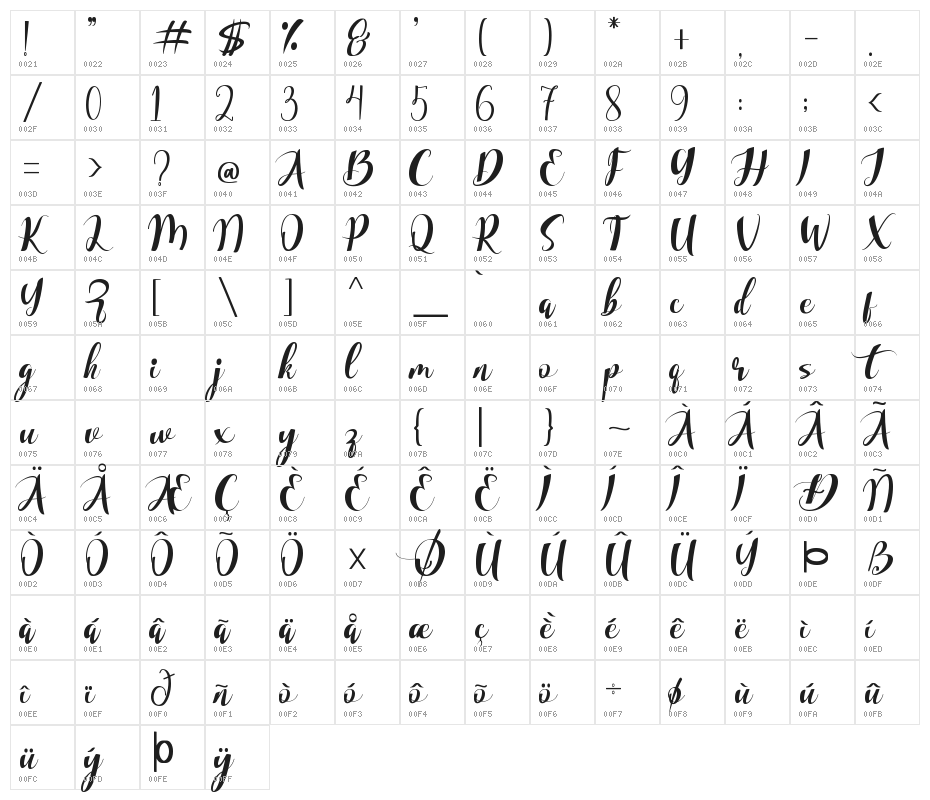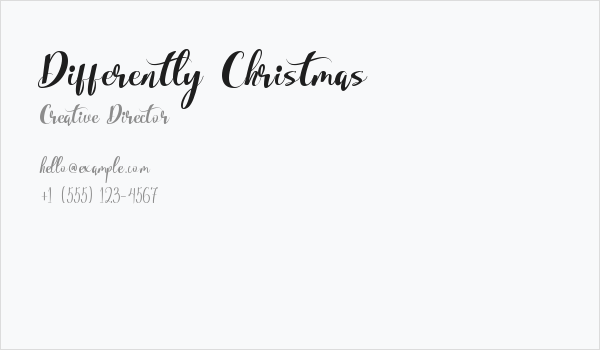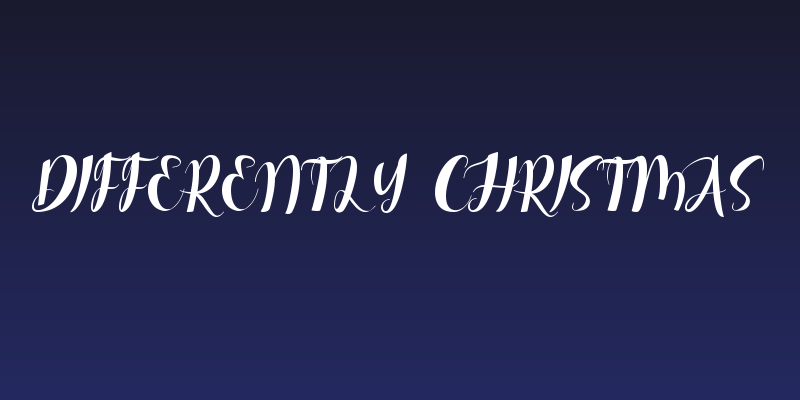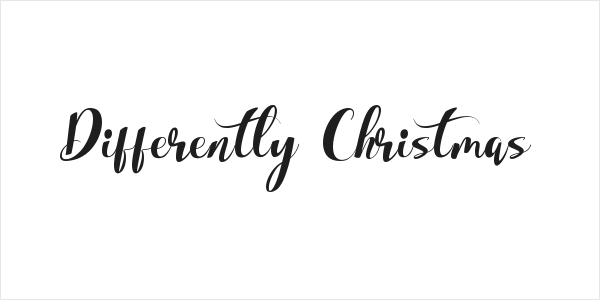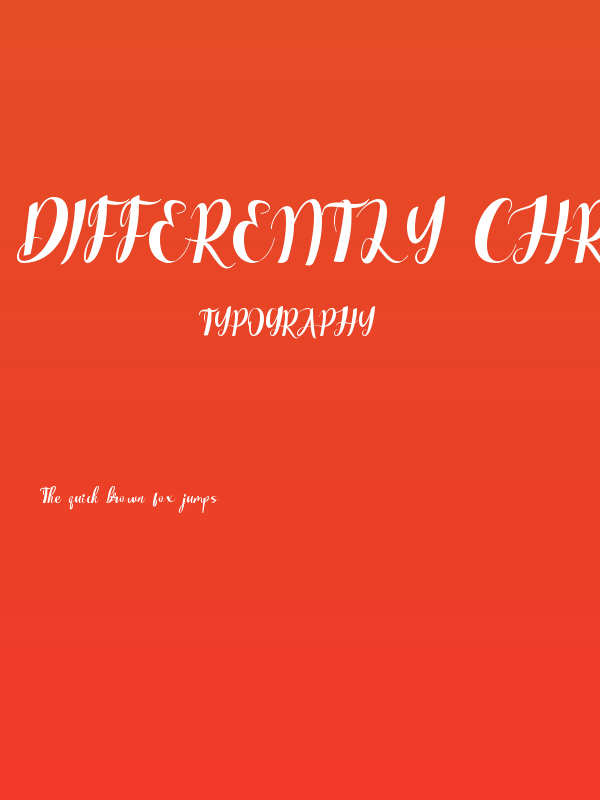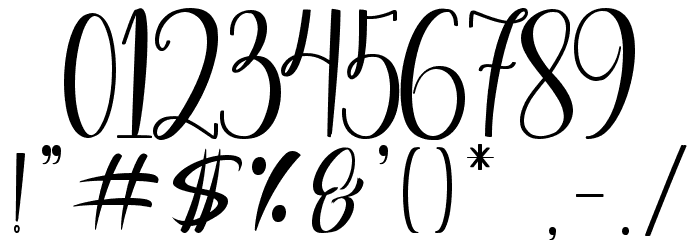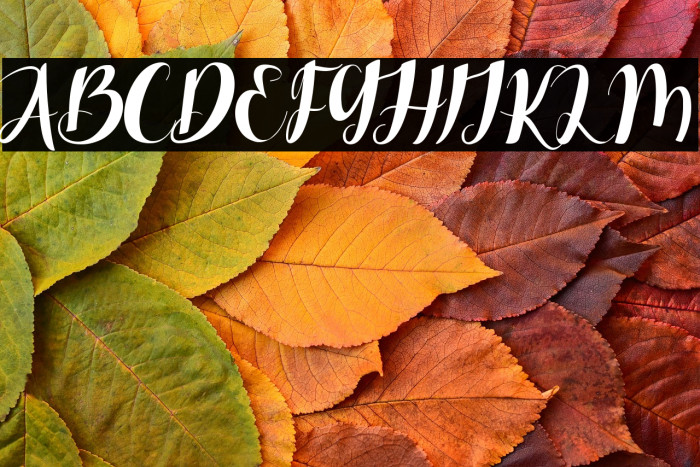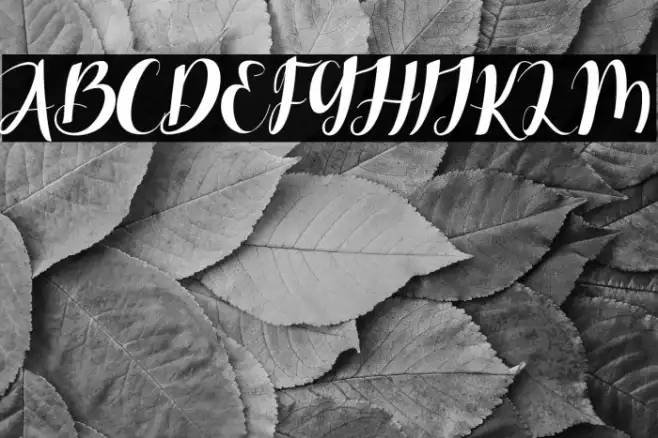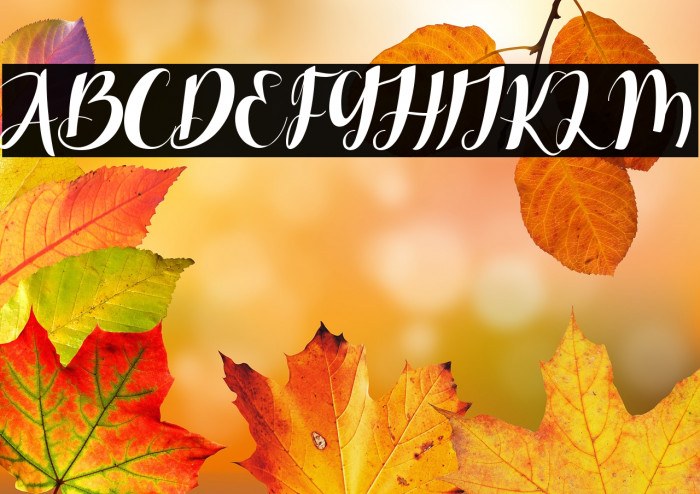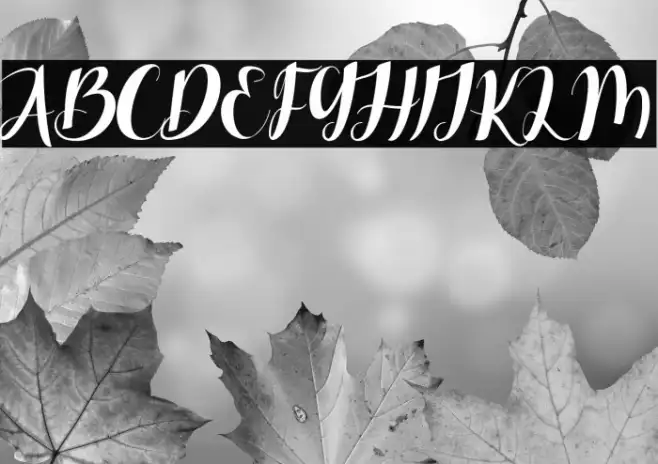
Differently Christmas Font
Differently Christmas Description
This font features an elegant and flowing script style, characterized by its graceful curves and fluid strokes. The uppercase letters are bold and dramatic, with sweeping lines that add a sense of movement and flair. The lowercase letters maintain a consistent style, with smooth connections and a slightly more restrained appearance. The numerals are tall and slender, complementing the overall aesthetic. Special characters are designed with the same attention to detail, ensuring a cohesive look across all glyphs. This font exudes a sense of sophistication and charm, making it ideal for projects that require a touch of elegance.